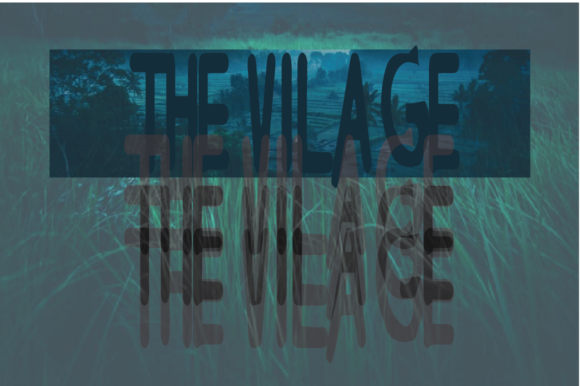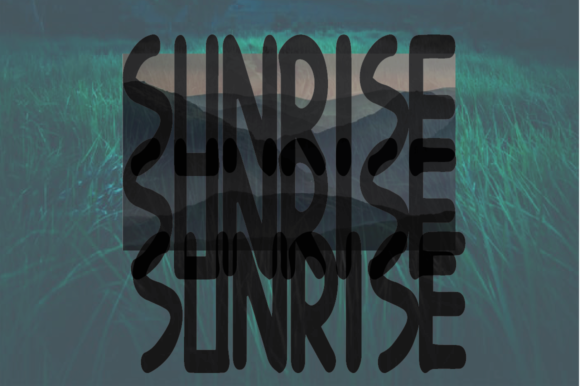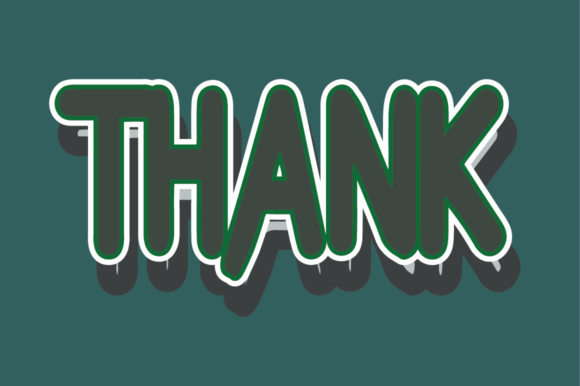
Unlock the Secrets of Allowwedbold Font
Have you ever stumbled upon a font that transports you to a world of fantasy and science fiction? For me, it was the moment I discovered Allowwedbold Font – a beautiful display font that screams of epic adventures and magical realms. I was working on a project, and I wanted to add a touch of whimsy to my design. As I scrolled through font libraries, Allowwedbold Font caught my eye with its peculiar yet charming characters.
Allowwedbold Font is more than just a pretty face; it’s a versatile tool for designers looking to add a touch of drama and elegance to their projects. Whether you’re designing a book cover, a movie poster, or a branding campaign, Allowwedbold Font is sure to make your work stand out. Its unique style and character set it apart from other display fonts, making it a valuable addition to any designer’s toolkit.
Key Features of Allowed Bold Font
- Unique Characteristics: Allowed Bold Font features a distinctive, bold sans-serif design with clean lines and a modern aesthetic, making it perfect for headlines, titles, and other display text.
- Font Weight: The font has a range of weights, including light, regular, bold, and extra bold, allowing users to customize the level of emphasis and visual impact.
Allowwedbold Font Review
First off, I want to say that I’m impressed with the overall aesthetic of Allowwedbold. The font’s modern design and clean lines ✨ make it perfect for use in logos, headings, and titles. The bold weight is particularly well-executed, adding a sense of sophistication and elegance to any text.
Another strength of Allowwedbold is its versatility ✨. It can be used in a variety of contexts, from digital products to print materials, and still maintain its integrity. The font also has a high level of legibility, making it easy to read even at smaller sizes.
However, there are some limitations to consider ⚠️. One of the main issues is the lack of italic or oblique styles. This can be a problem for designers who need to create documents that require italic text. Additionally, the font’s capital letters can sometimes appear a bit too condensed, which may affect readability.
Here are some specific features that I think could be improved:
- Lack of italic or oblique styles
- Condensed capital letters
- Minimal support for special characters and symbols
Overall, I think Allowwedbold is a solid choice for designers looking for a modern, clean font. While it has some limitations, its strengths make it a valuable addition to any design toolkit.
The Allowedbold Font is ideal for creating bold and eye-catching headlines, titles, and headings.
It’s also great for creating emphasis in paragraphs and adding a touch of sophistication to your designs.